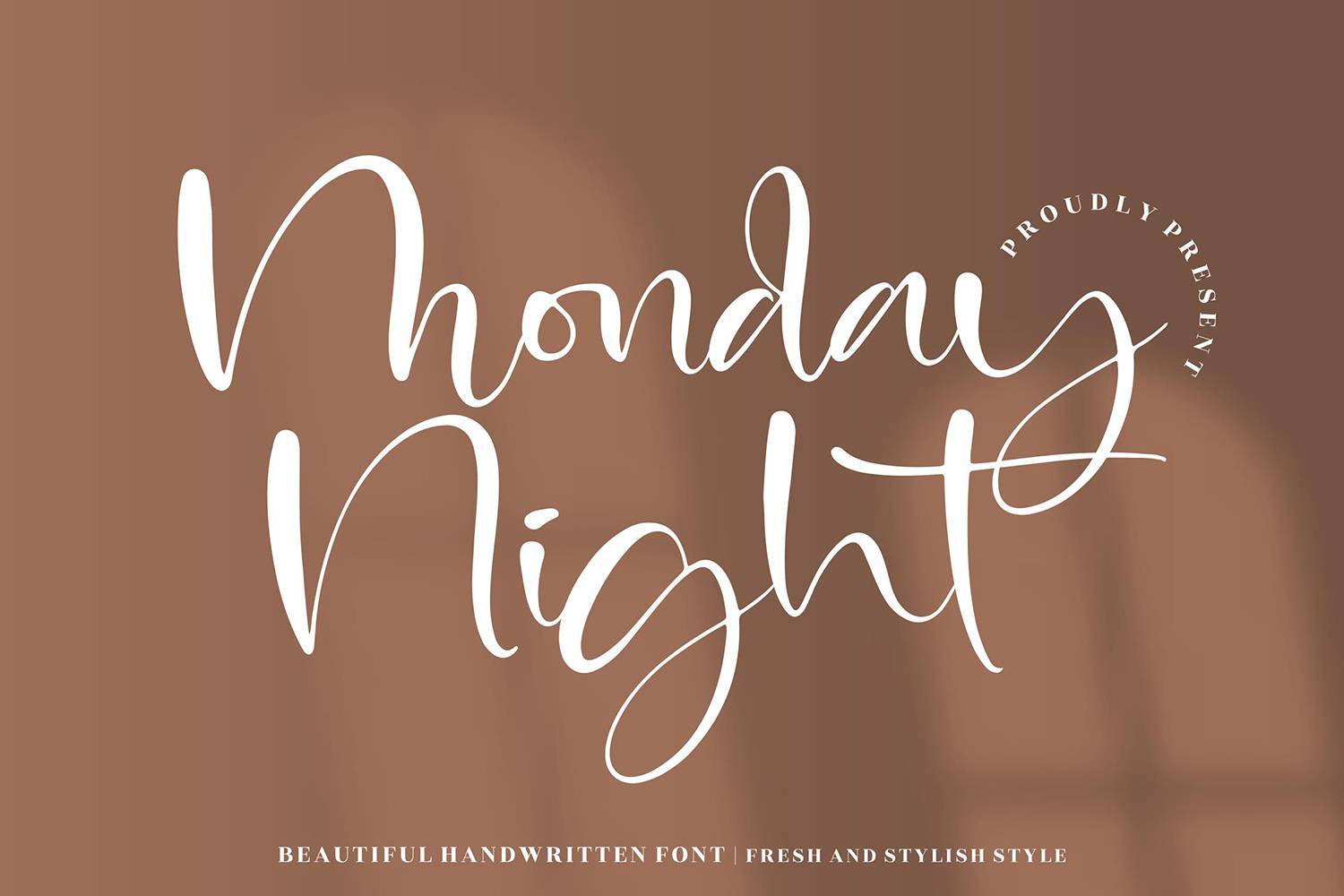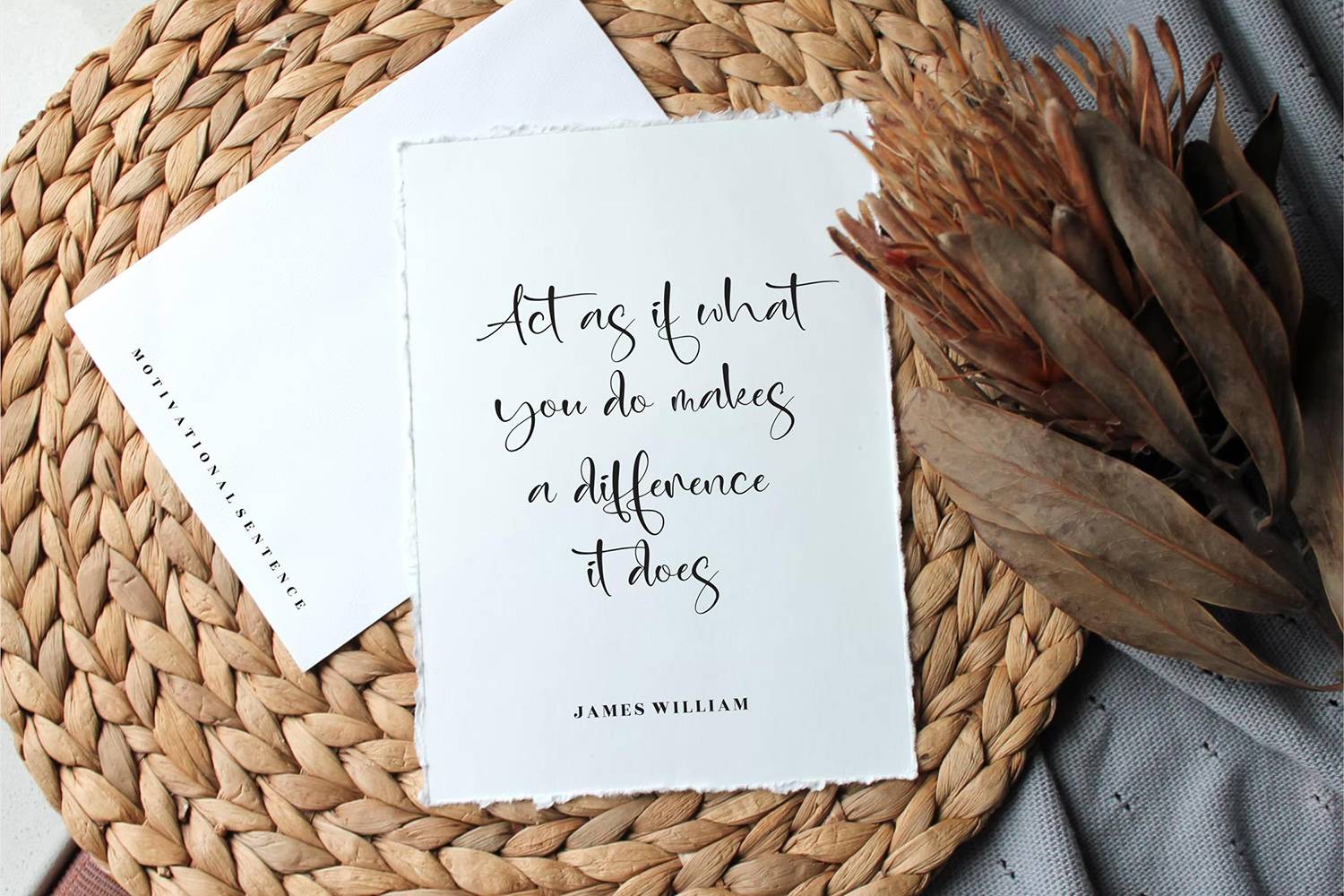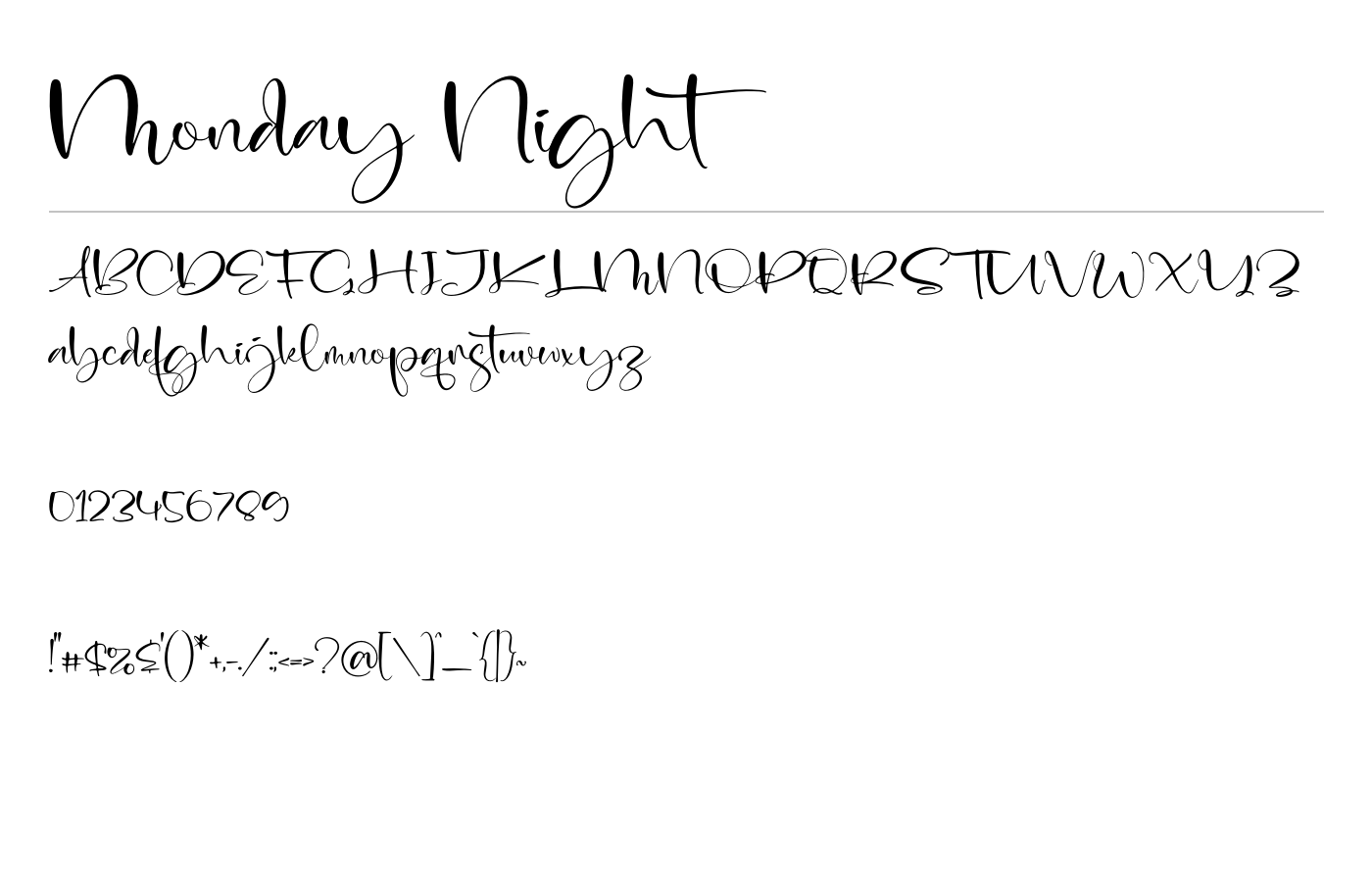
Monday Night is a delicate, handwritten script font that features thin, flowing strokes with elegant swashes and loops, giving it a graceful and whimsical charm. Its light weight and tall x-height make it perfect for adding a personal, artistic touch to wedding invitations, branding, and stylish headlines where a sophisticated yet approachable feel is desired. This font shines in creative, feminine, or romantic contexts thanks to its airy spacing and playful, natural letterforms.
Monday Night Font
About Monday Night Font